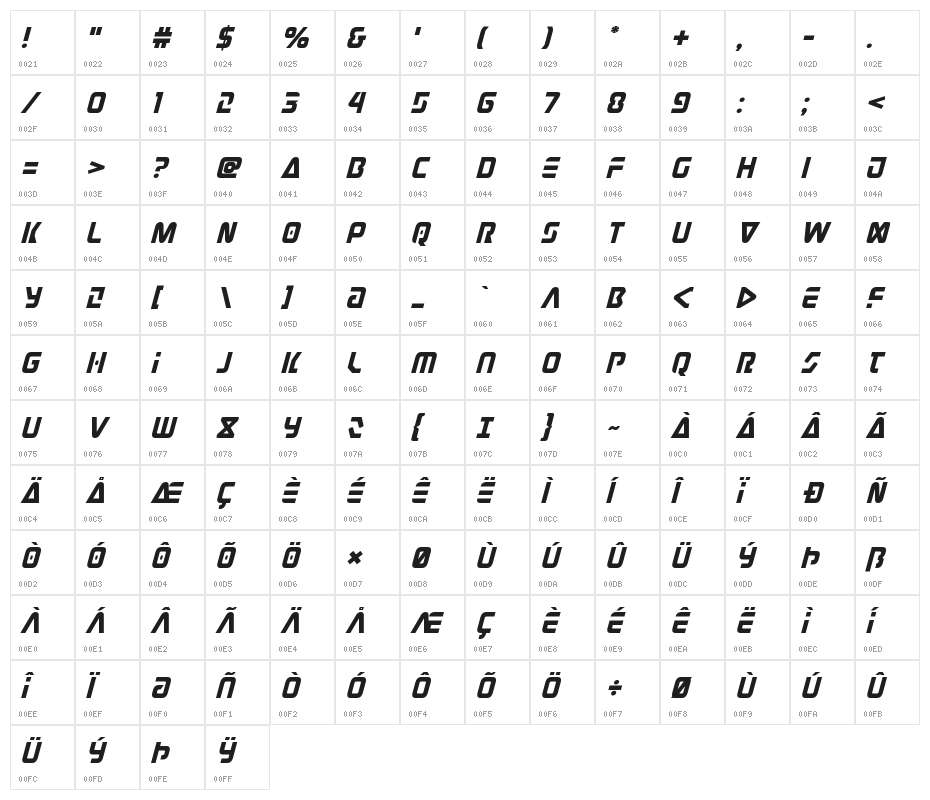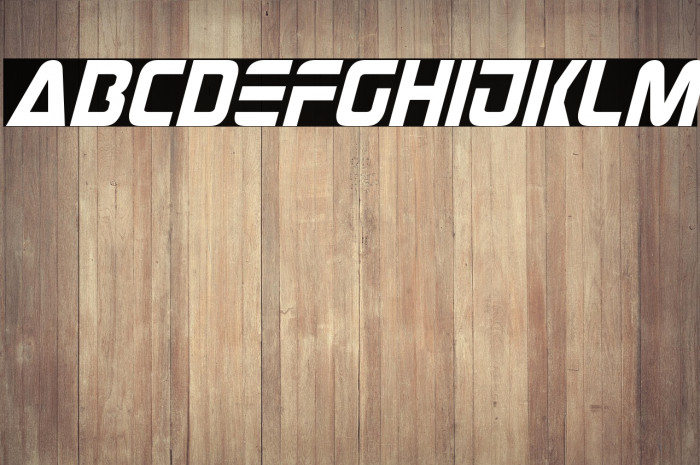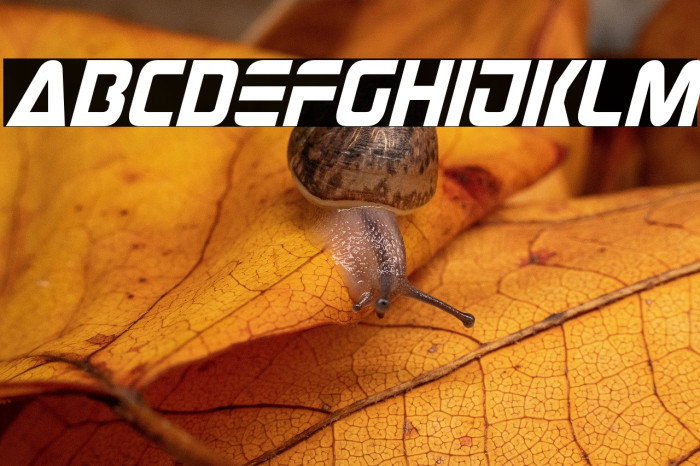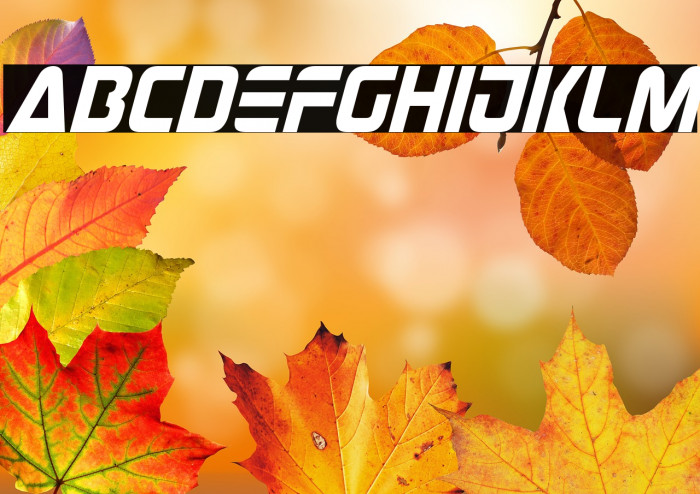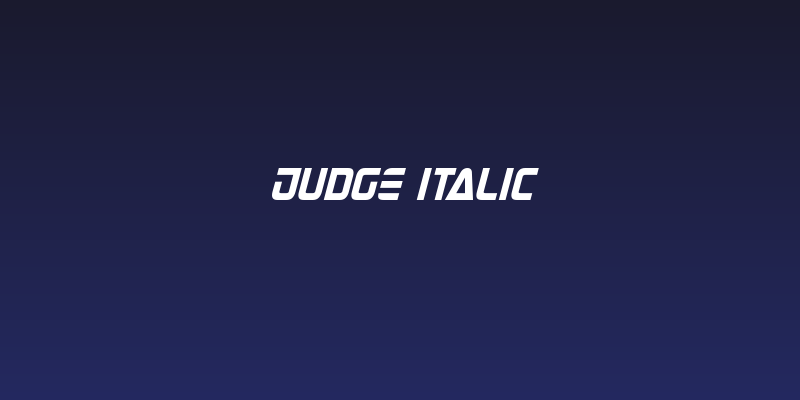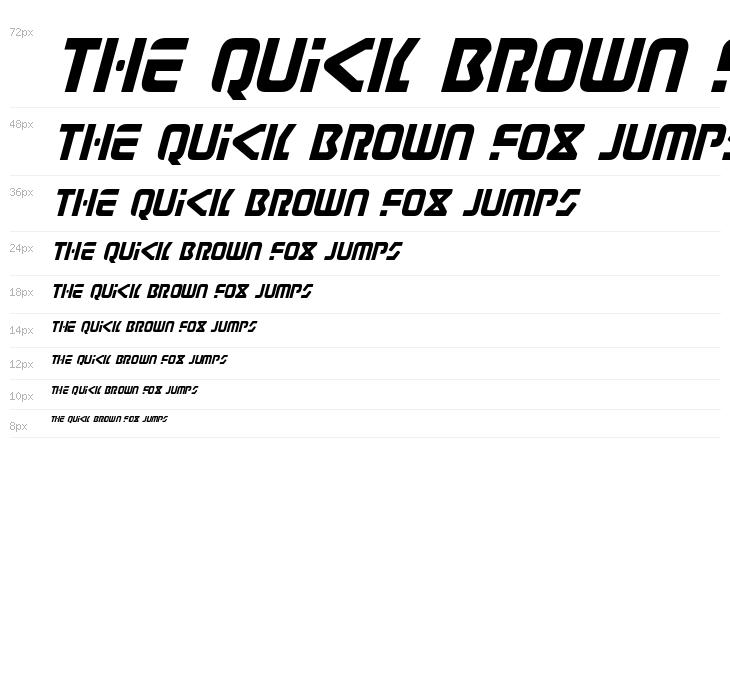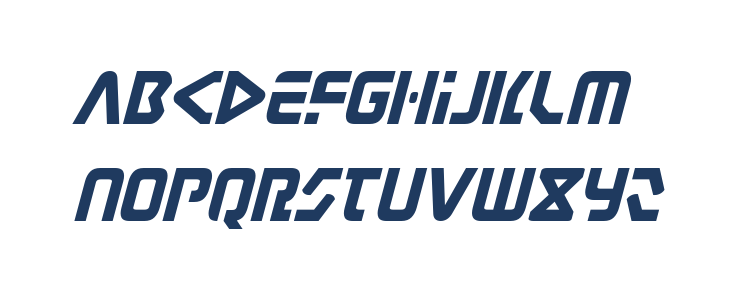
Judge Italic Font
Judge Italic Description
This font features a bold, italicized style with a futuristic and dynamic appearance. The characters are designed with sharp angles and a forward-leaning posture, giving a sense of motion and speed. The uppercase letters are distinct with unique geometric shapes, while the lowercase letters maintain a consistent style. Numbers and special characters follow the same angular and bold design, ensuring uniformity across all glyphs. The overall look is modern and edgy, suitable for projects that require a strong visual impact. The font's boldness and italic slant make it stand out, making it ideal for attention-grabbing headlines or branding materials.